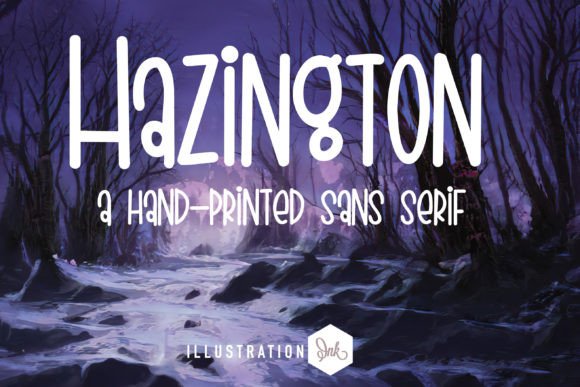
Introducing Hazington Font: The Quirky and Youthful Sans Serif for Your Creative Vision
Embark on a typographic adventure with Hazington Font, a captivating sans serif font family that exudes personality and charm. This hand-crafted font, brought to life by the talented designers at Illustration Ink, is a delightful blend of casual elegance and youthful exuberance, ready to transform your creative projects into captivating masterpieces.
With its quirky characters and original look, Hazington Font stands out from the crowd. Its lack of descenders creates a clean and airy aesthetic, while its playful letterforms add a touch of whimsy and fun. Whether you're designing invitations, posters, social media graphics, or eye-catching headlines, Hazington Font is the perfect choice to make your words dance off the page.
As a sans serif font, Hazington Font possesses a timeless quality that transcends fleeting trends. Its clean lines and simple shapes ensure that your designs remain relevant and impactful for years to come. And with its tall print, Hazington Font commands attention without overpowering your content. It's the perfect choice for creating visually striking designs that leave a lasting impression.
Whether you're a seasoned designer or just starting your creative journey, Hazington Font is the perfect tool to add a personal touch to your projects. Its versatility and charm make it suitable for a wide range of applications, from invitations and greeting cards to posters and flyers. And with its easy-to-use format, Hazington Font integrates seamlessly into your favorite design software, making it a breeze to bring your creative visions to life.